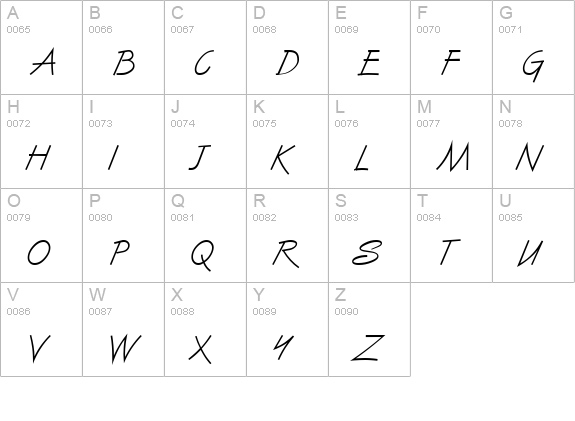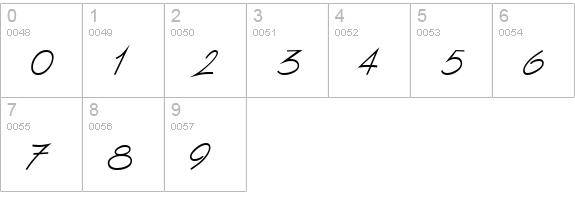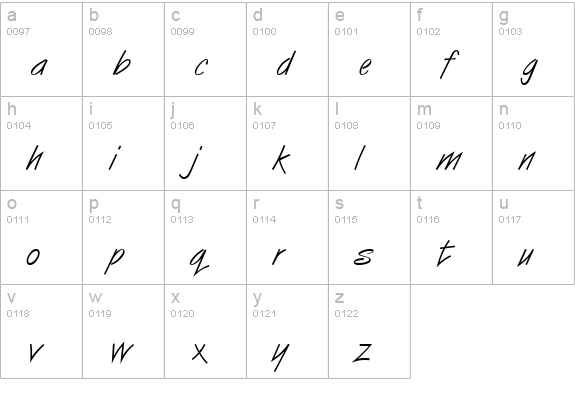
SassyScript Font Details
Introducing SassyScript, a captivating and stylish font that exudes confidence and sassiness. This font is perfect for those looking to add a touch of attitude to their designs. With its bold and curvaceous letterforms, SassyScript commands attention and makes a statement. Whether you're designing a poster, a logo, or a social media post, SassyScript will effortlessly elevate your project to a whole new level. Its unique and eye-catching characters will grab the viewer's attention and leave a lasting impression. But what makes SassyScript even more amazing is that it is absolutely free! That's right, you can download this fabulous font without spending a dime. Simply head over to FontsMarket.com and get your hands on this must-have typeface. With SassyScript, you'll have the power to create stunning designs that are as bold and sassy as you are. So why wait? Add a touch of sass to your next design project with SassyScript. Download it for free at FontsMarket.com and let your creativity shine. Get ready to turn heads and make a statement with this incredible font.